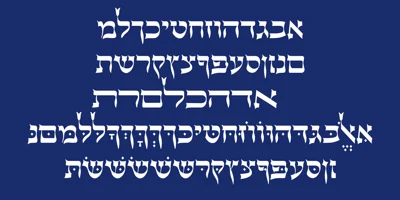
Hebrew Century Font
Hebrew Century Font is perfect for Jewish cultural center branding, synagogue publication materials, Hebrew educational textbooks, religious ceremony invitations, kosher restaurant menus, Jewish heritage museum displays, rabbinical conference presentations, Torah study group materials, Jewish community newsletters, and traditional Hebrew calligraphy projects. Its authentic Hebrew character makes it ideal for projects requiring religious dignity and cultural authenticity.
What makes Hebrew Century Font exciting is its respectful embodiment of Hebrew typographic tradition and Jewish cultural heritage with classical letterforms and sacred characteristics that honor centuries of Hebrew scribal artistry and religious scholarship. The font features traditional Hebrew proportions, authentic character construction, and reverent design elements that create genuine religious atmosphere and cultural appeal. Its dignified personality brings respect and authenticity to contemporary designs while maintaining the clarity essential for religious communications and educational presentations. The carefully crafted traditional elements ensure cultural accuracy while preserving the distinctive character that embodies the essence of Hebrew heritage and Jewish scholarship excellence.
Hebrew Century Font comes in multiple traditional variations including Regular, Bold, Light, Classic, and Ceremonial styles. Each family member maintains the distinctive Hebrew character while offering comprehensive flexibility for religious typography and cultural brand system development. The complete font family includes Hebrew punctuation marks, religious symbols, and traditional decorative elements that provide essential tools for authentic Hebrew communication excellence and Jewish cultural presentation.
Whether you're developing Jewish organizations, Hebrew educational materials, or religious publication projects, Hebrew Century Font provides the cultural authenticity needed to communicate with Jewish communities and Hebrew scholars who appreciate religious tradition and cultural heritage. The font's traditional appeal resonates with rabbis, educators, and Jewish cultural professionals seeking authentic Hebrew credibility and religious sophistication. Its comprehensive character set includes Hebrew symbols and religious marks, making it perfect for creating complete Jewish cultural brand systems and memorable Hebrew storytelling across diverse religious applications and traditional design projects that celebrate Jewish heritage and Hebrew scholarship excellence.